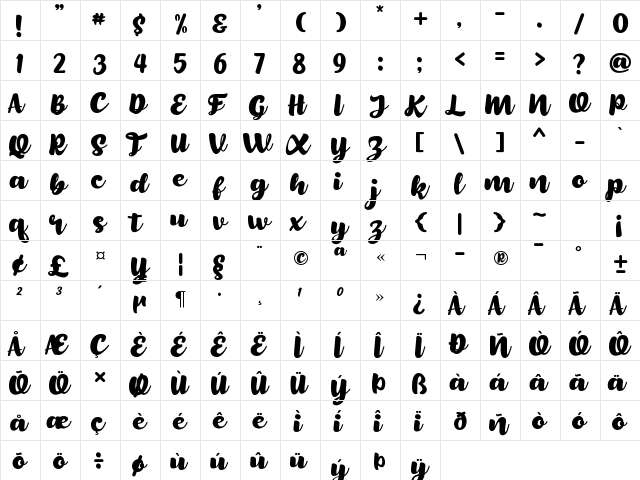
the beauty Regular Font Preview
the beauty Regular
the beauty Regular Font Details
| Designer | Toni Dzulham |
Design Context for the beauty Typeface
the beauty is a composed and adaptable typeface that performs quietly and consistently across a wide range of design contexts.